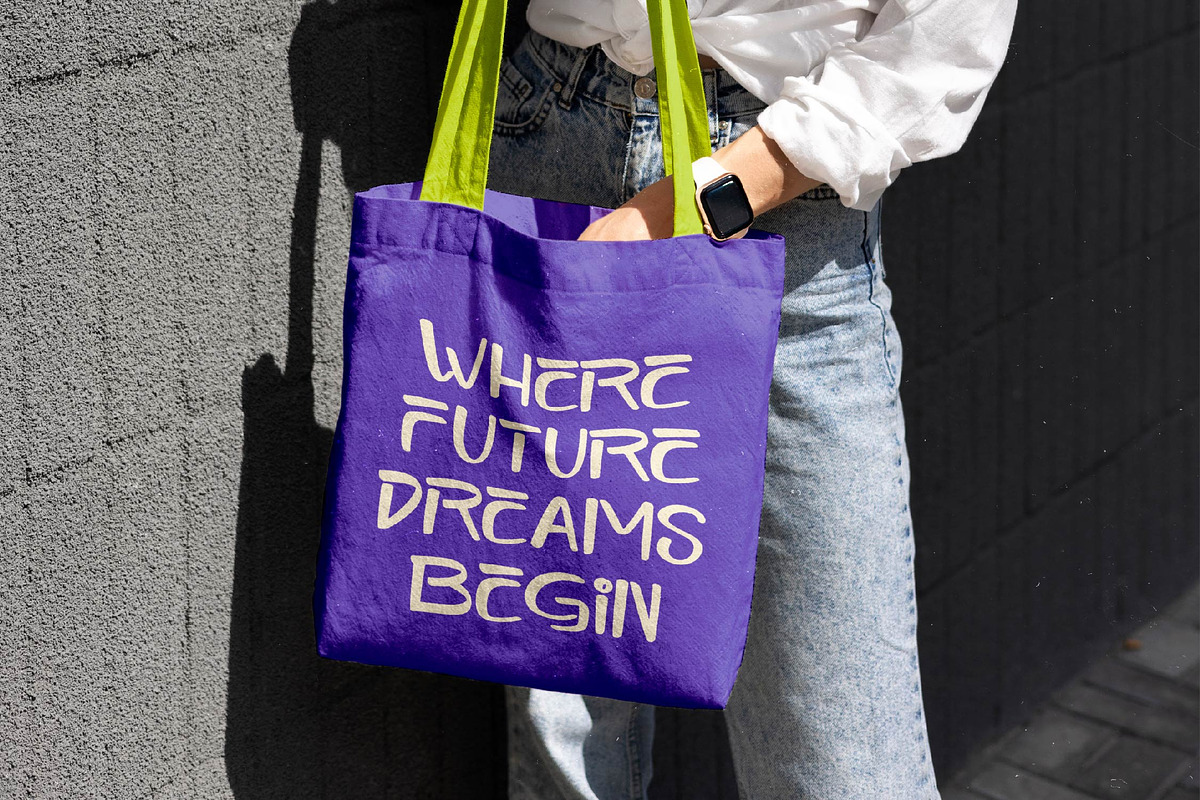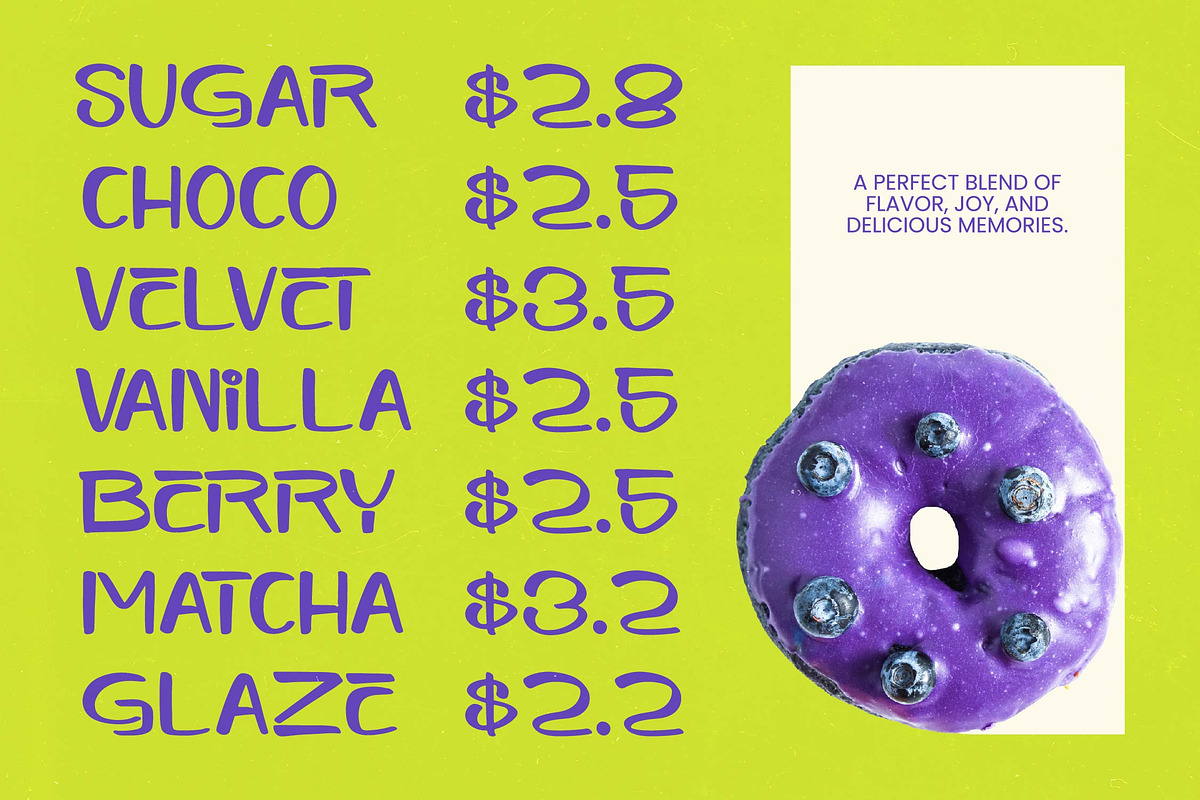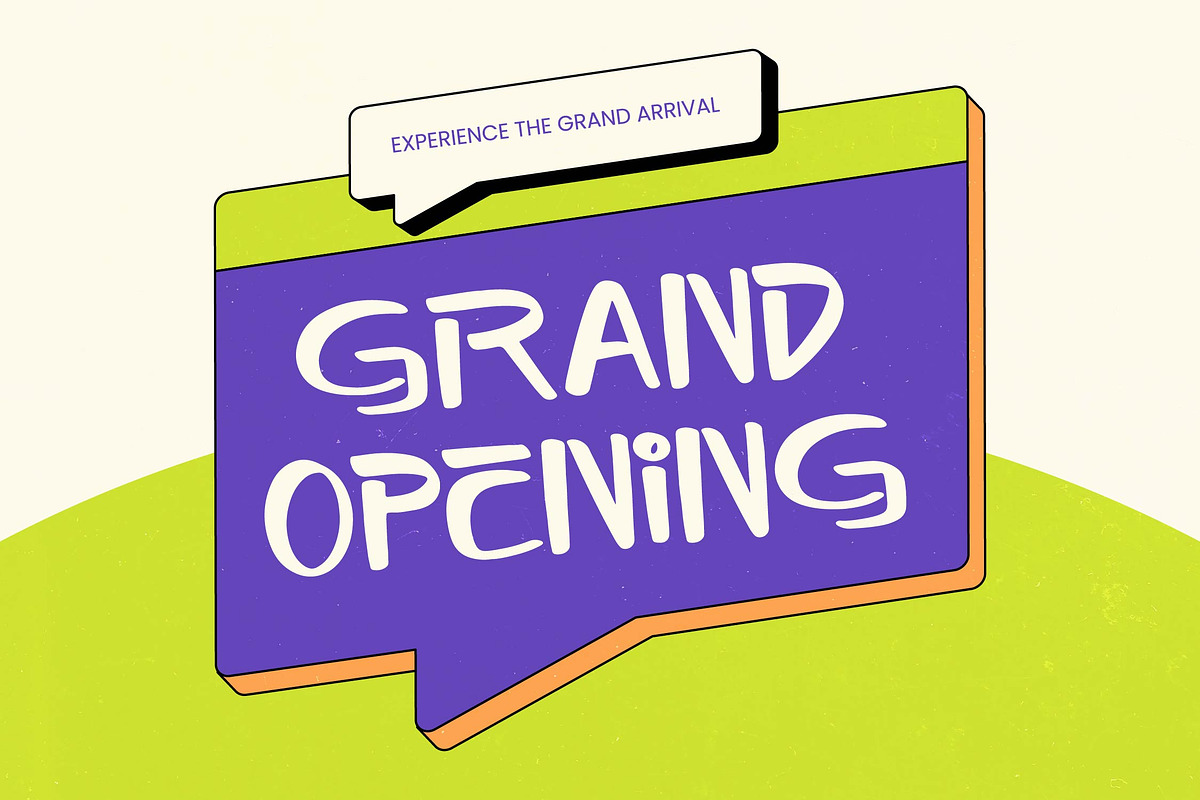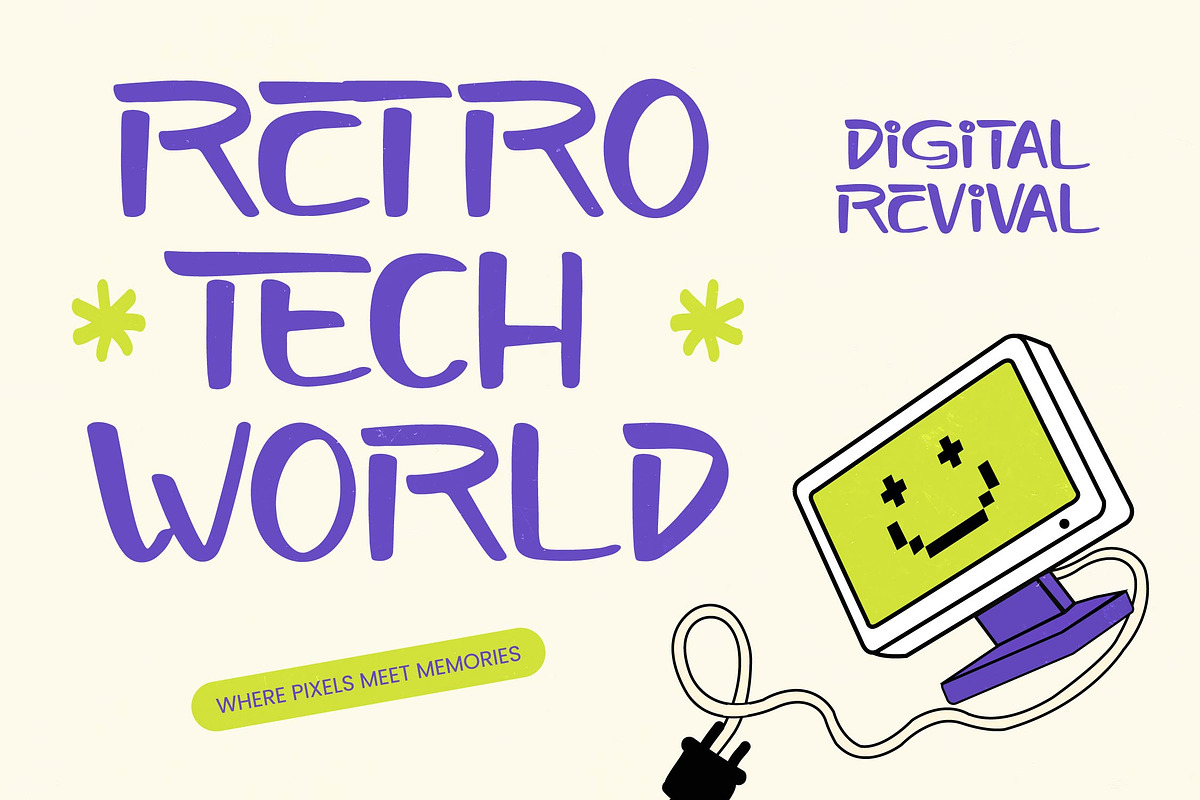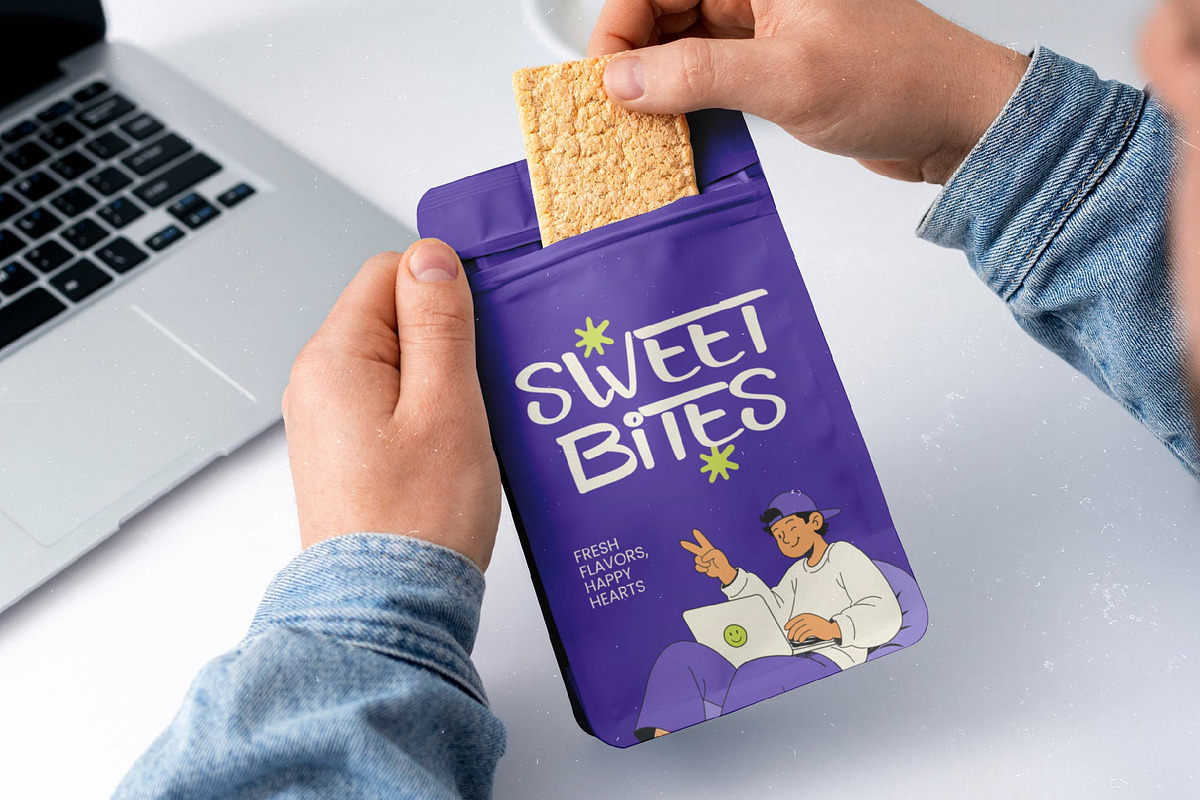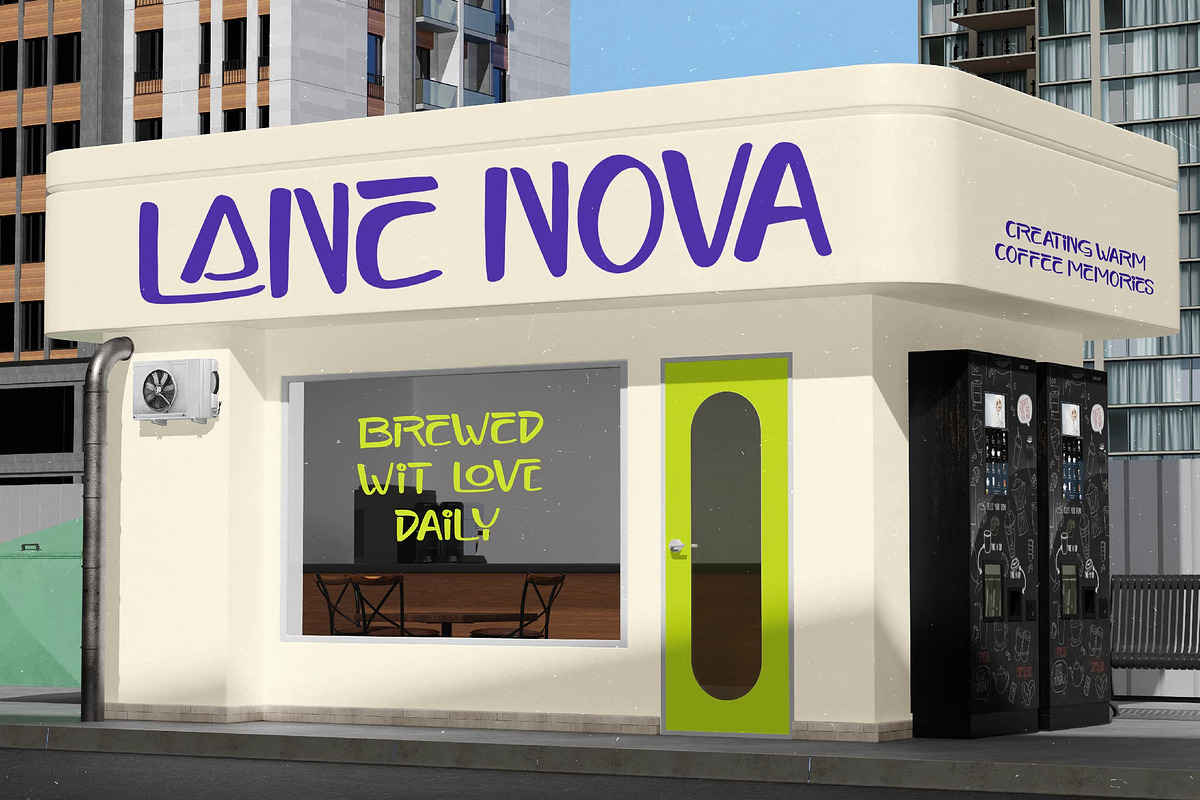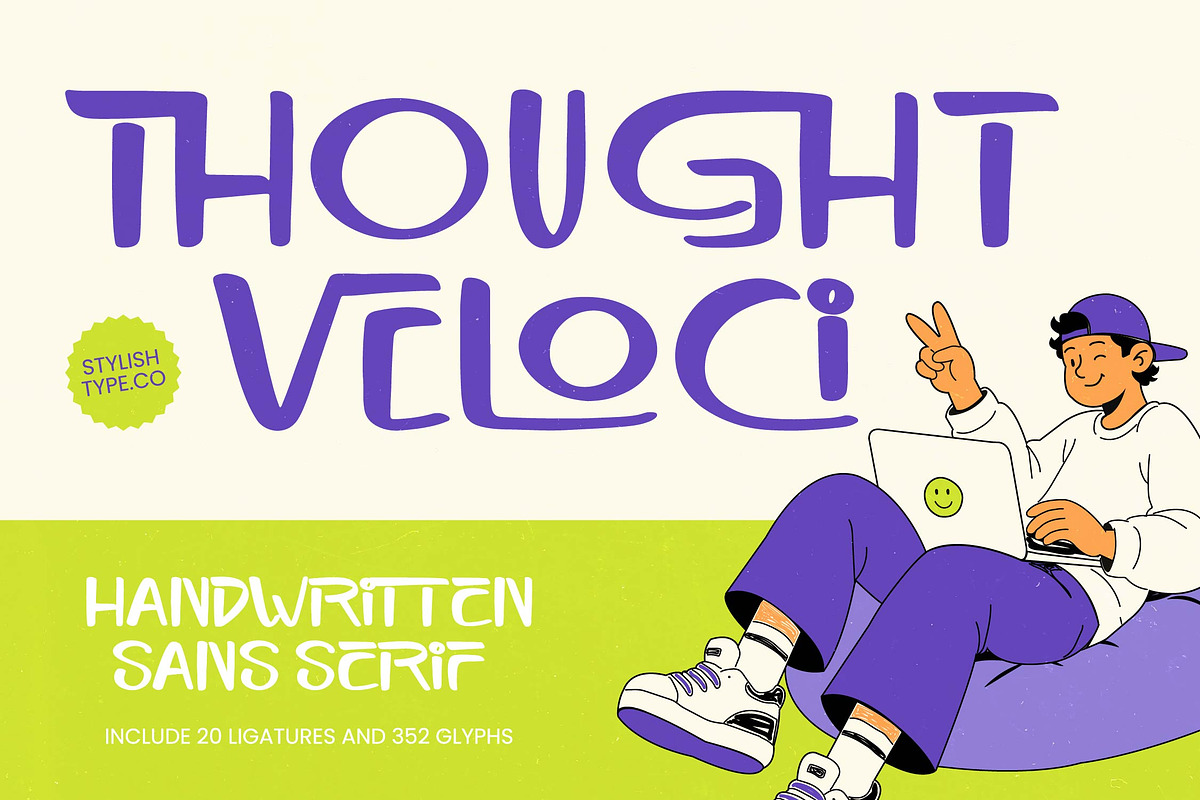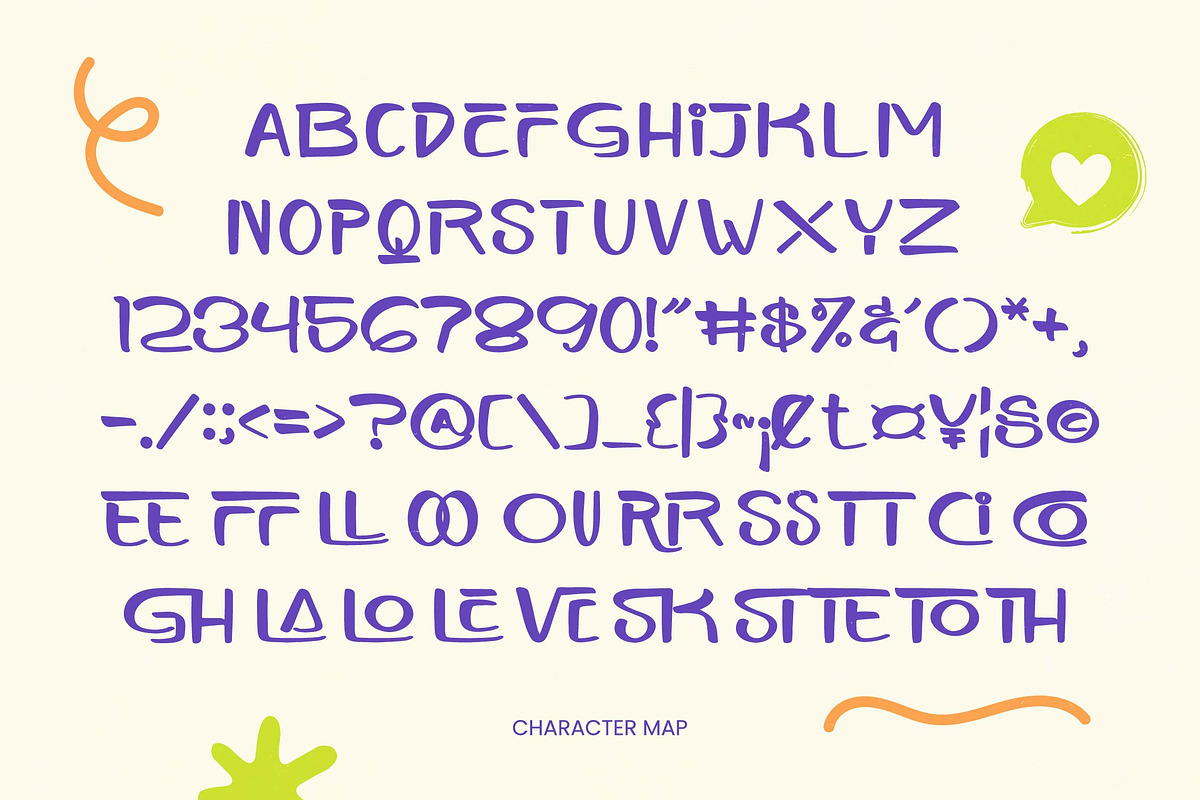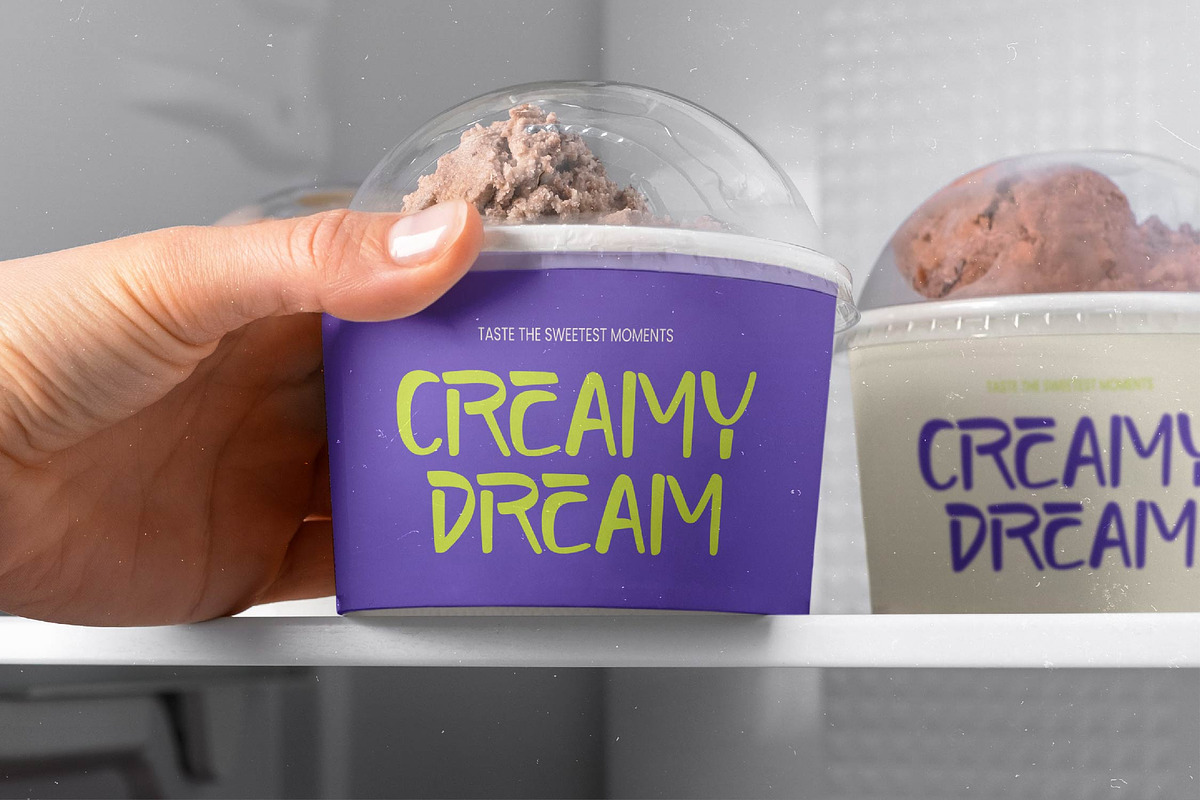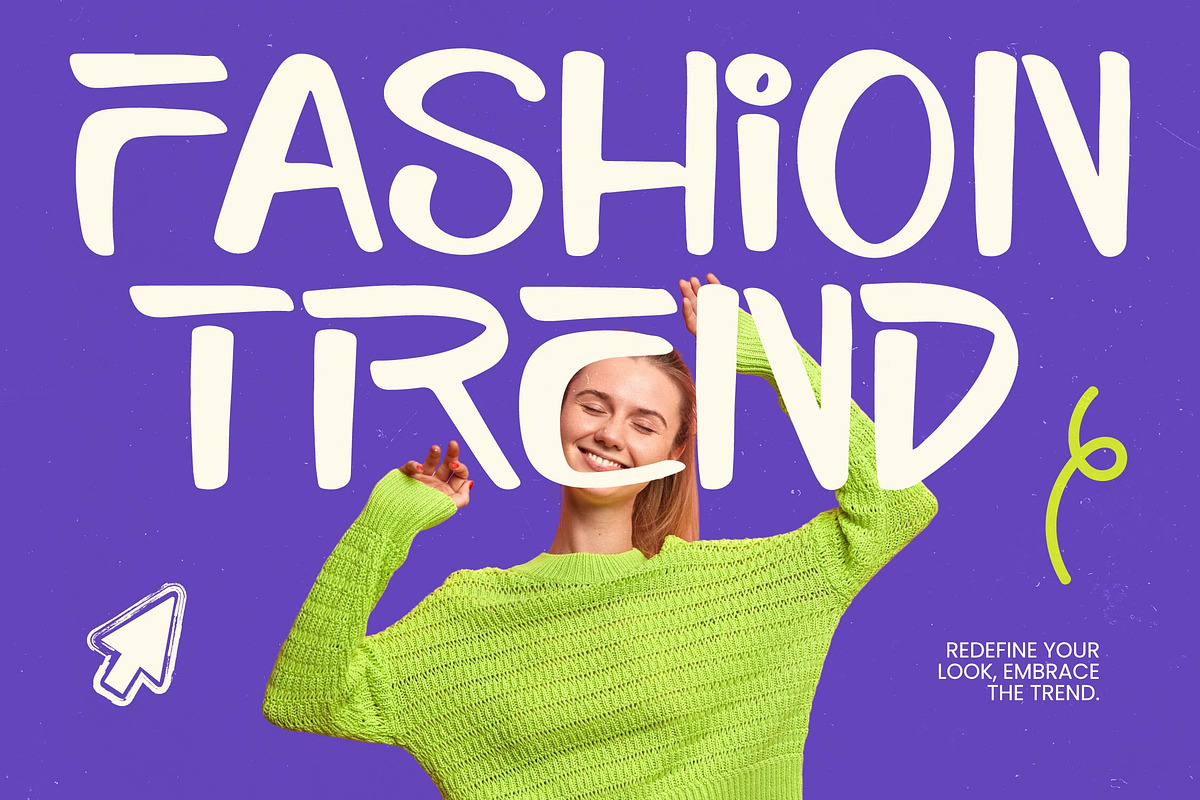
Thought Veloci Handwritten Sans
Thought Veloci - Handwritten Sans Serif , Elevate your creative projects with a touch of authentic human energy using Thought Veloci - Handwritten Sans Serif. This contemporary sans serif blends the casual charm of hand-lettering with the structural integrity required for high-end professional projects. Its fluid strokes and playful letterforms evoke a sense of organic approachability, making it the perfect choice for brands looking to establish a genuine connection with their audience through authentic typography.
Precision meets personality in this meticulously crafted typeface that offers both visual flair and technical excellence. Boasting a comprehensive set of 352 glyphs and 20 unique ligatures, Thought Veloci - Handwritten Sans Serif provides designers with the tools to create truly customized typography. The natural rhythm of the characters ensures high legibility while maintaining a distinctive aesthetic, making this a high-performance design asset built to streamline your creative workflow.
Expand your brand’s reach without sacrificing style or consistency across borders. With its extensive multilingual support, Thought Veloci - Handwritten Sans Serif adapts seamlessly across global markets, making it incredibly versatile for international projects. This global compatibility ensures that your message remains clear and impactful regardless of the region. Whether you are targeting a local niche or a broad international audience, Thought Veloci - Handwritten Sans Serif provides the typographic flexibility needed to scale your brand effectively.
Unlock endless possibilities for your next design venture with a font that prioritizes aesthetic versatility and modern charm. This typeface is an exceptional choice for lifestyle branding, dynamic social media content, and modern packaging design. It is perfect for editorial layouts and creative advertising where a friendly, energetic vibe is essential. From bold headers to innovative merchandise, Thought Veloci - Handwritten Sans Serif transforms ordinary text into a compelling visual narrative that captures attention instantly.